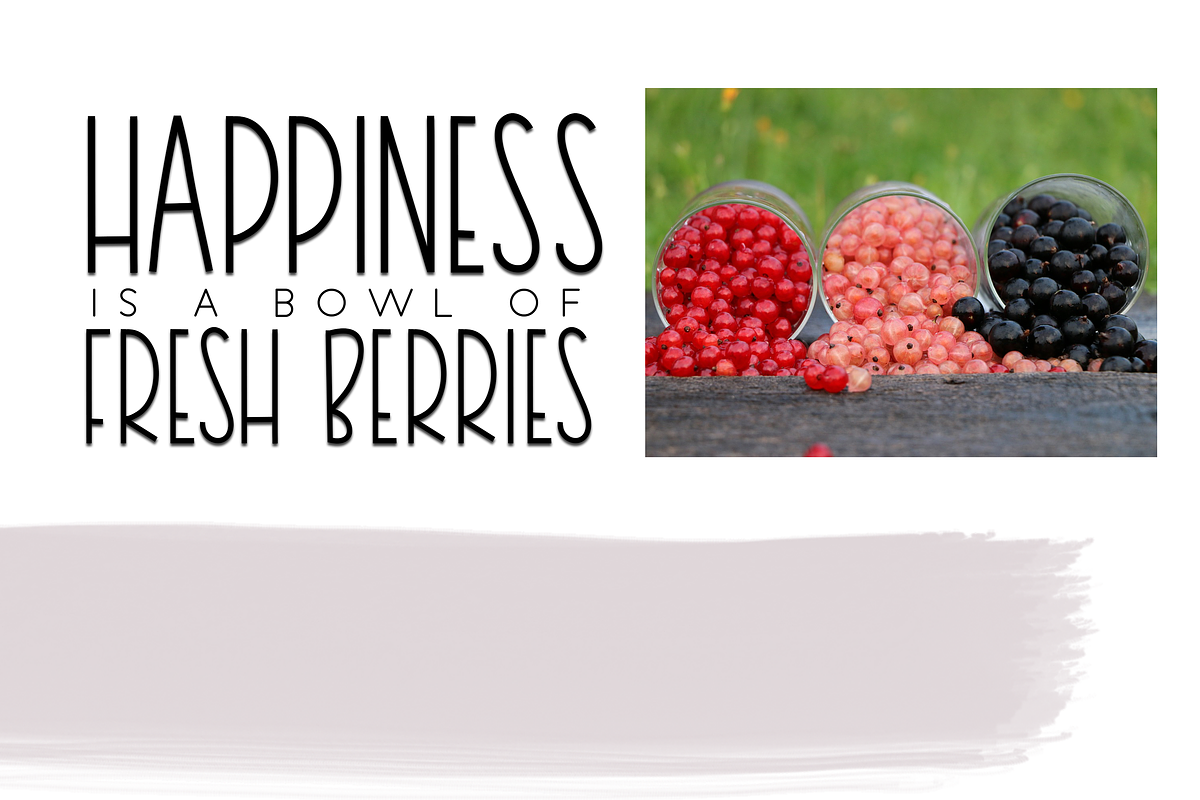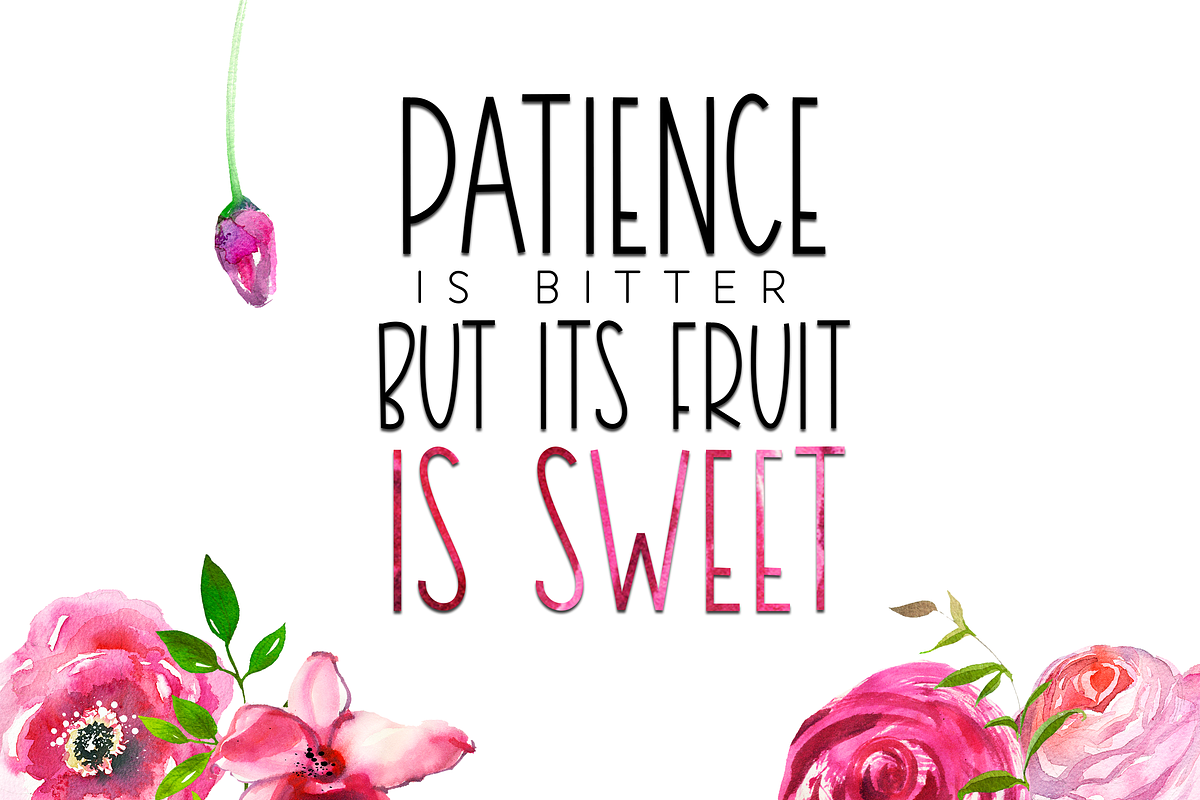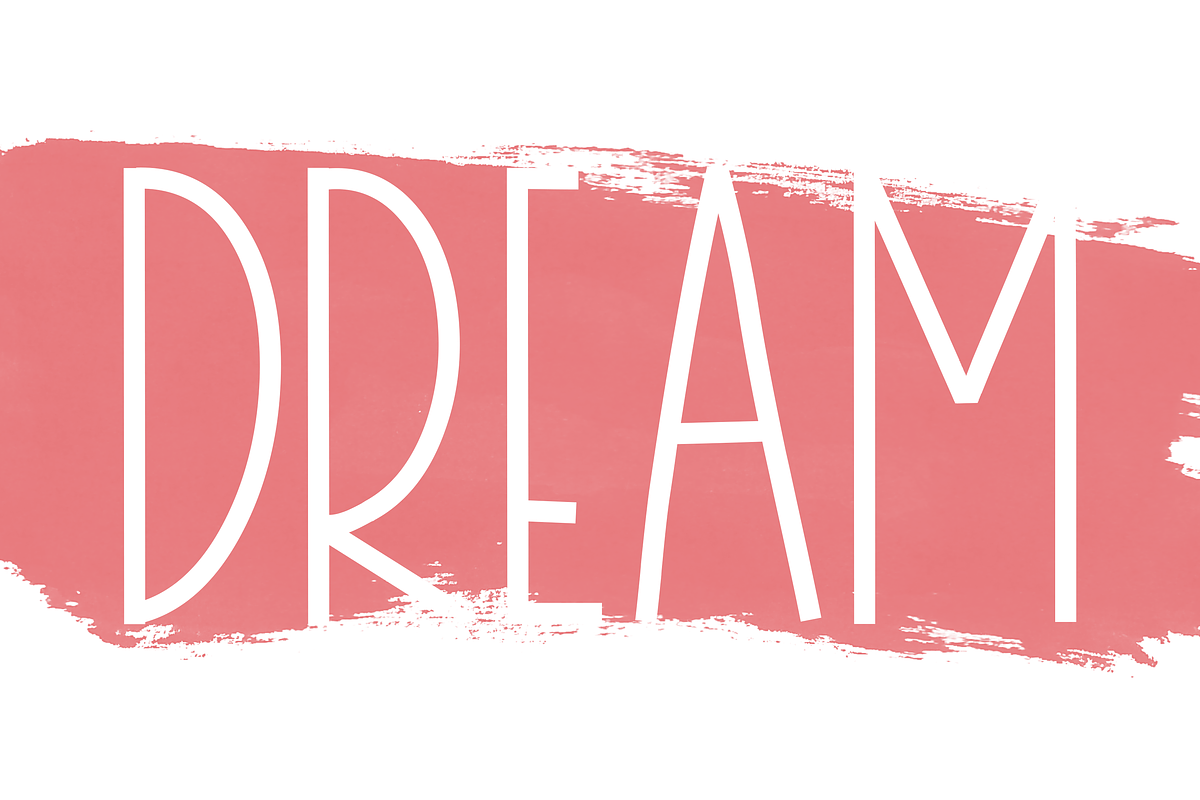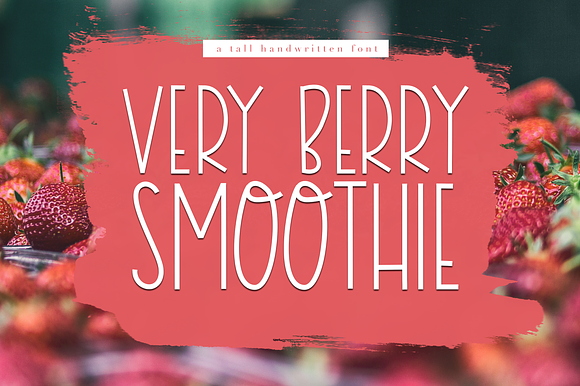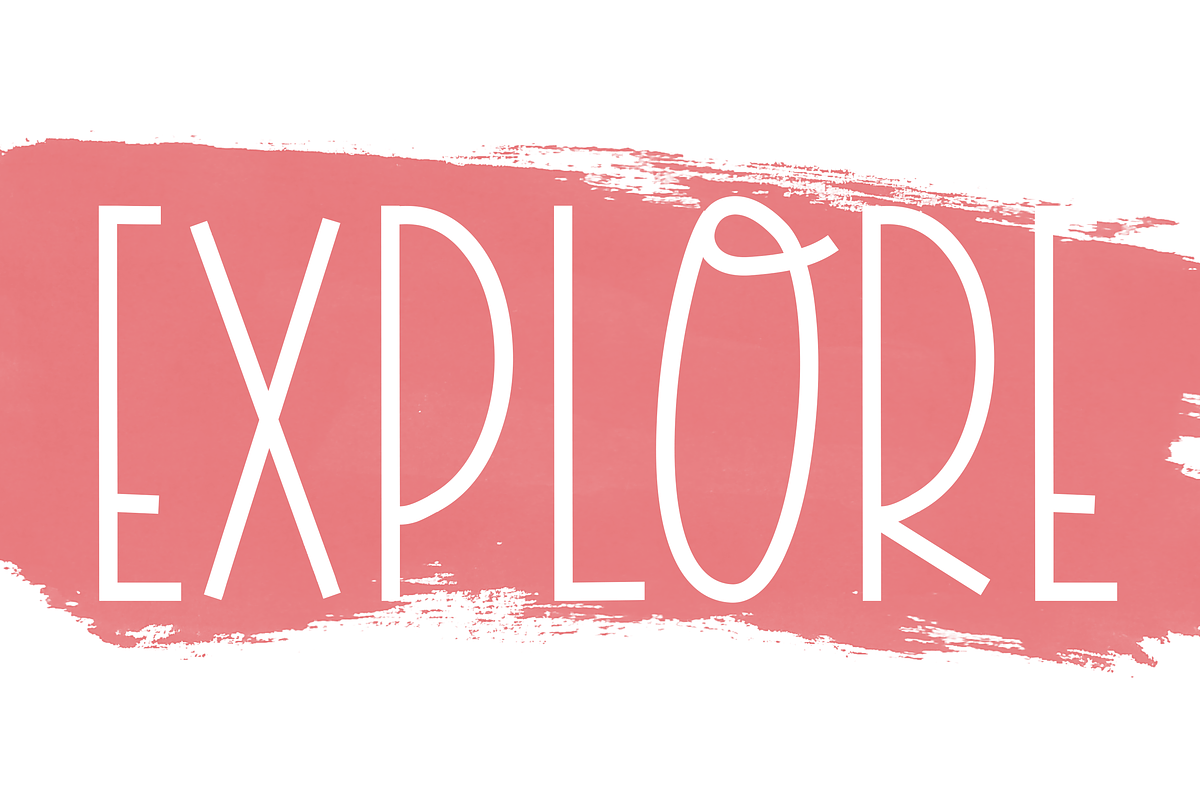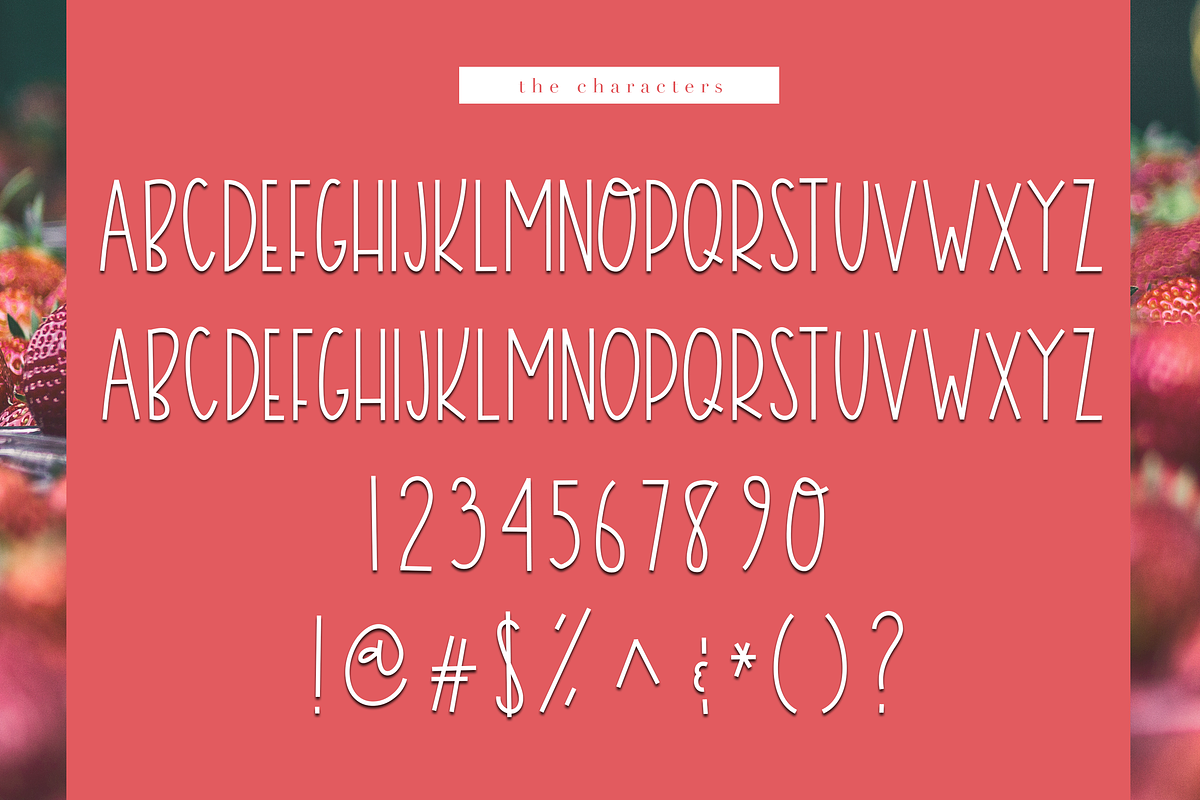
Very Berry Smoothie - A Tall Font
Very Berry Smoothie is a handwritten display font - the characters are tall and thin. This is an ALL CAPS font - with an alternating embellishment on the letter "O".
This font is perfect for blogs, invitations, covers and advertisements.
Very Berry Smoothie - A Tall Font by KA Designs fits naturally into Branding, posters, packaging, typography.